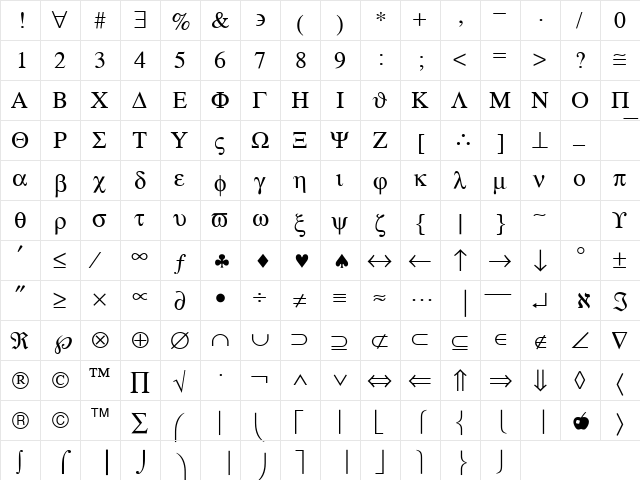
SymbolSH Medium
Design Context for SymbolSH Typeface
SymbolSH takes a measured approach to typography — its balanced proportions and neutral character make it a reliable workhorse for both digital and print work.